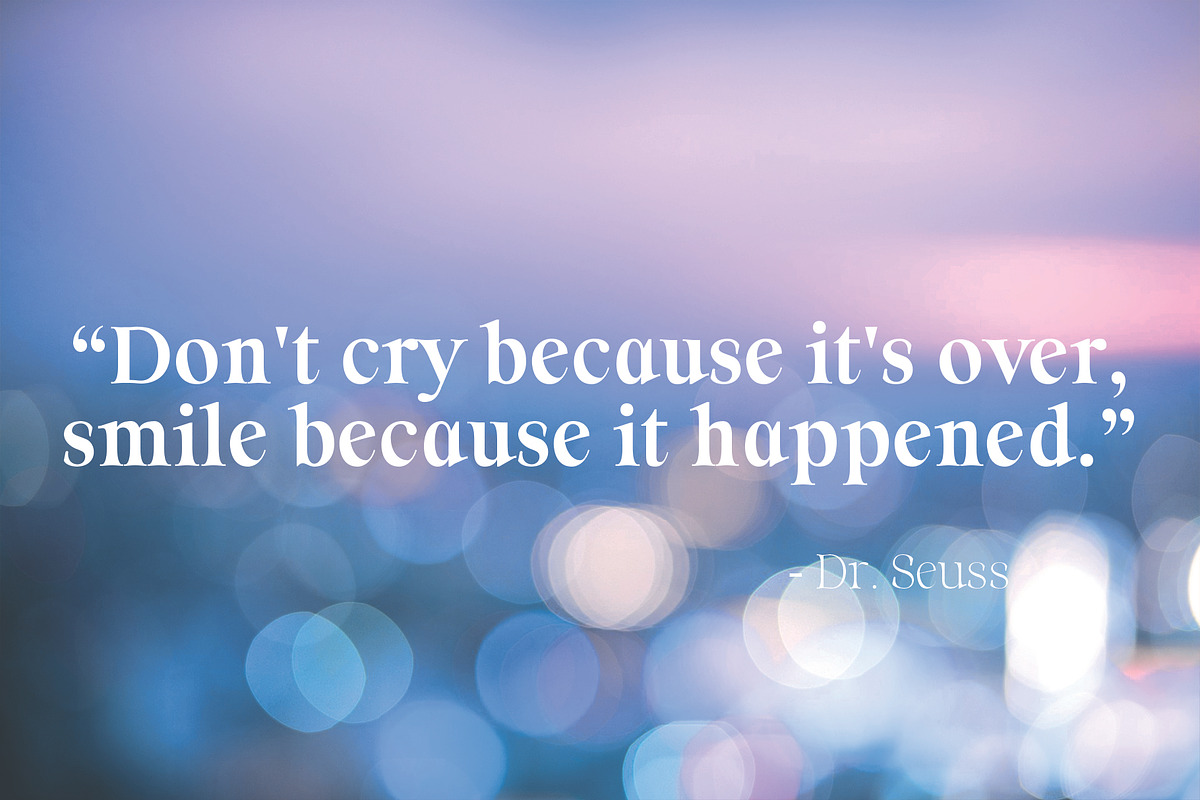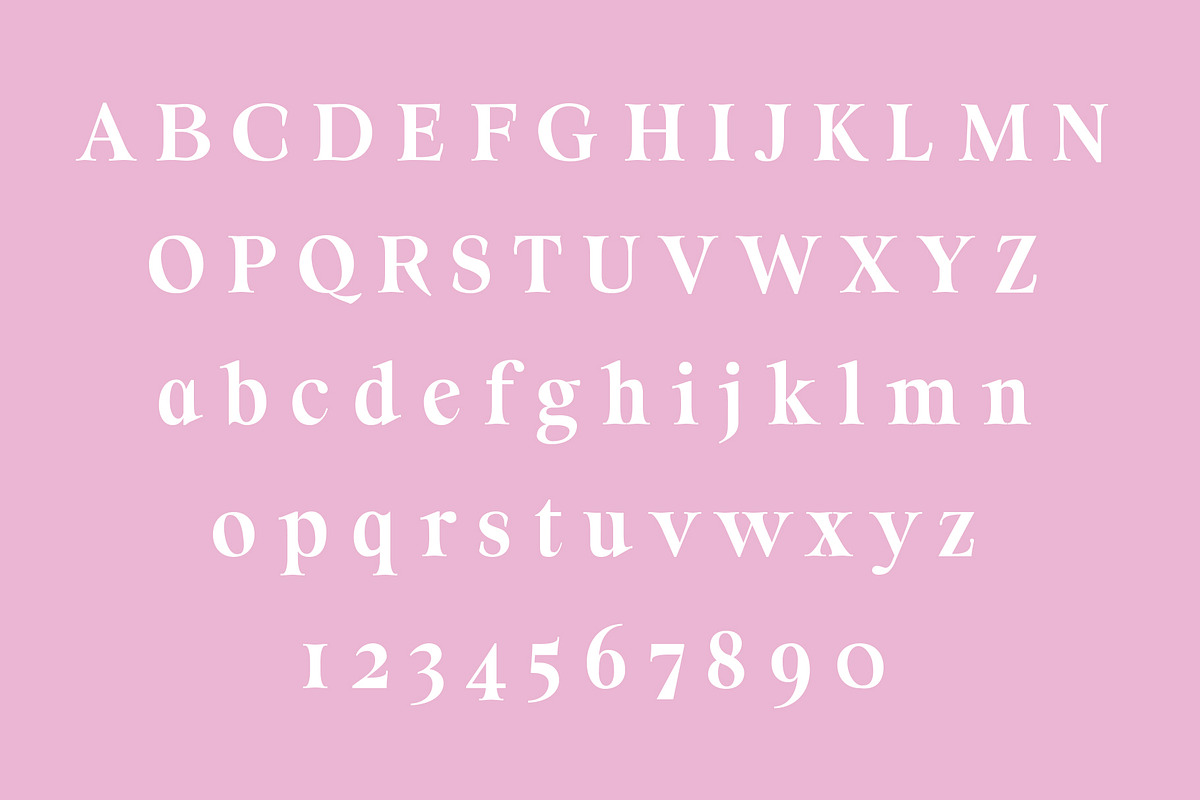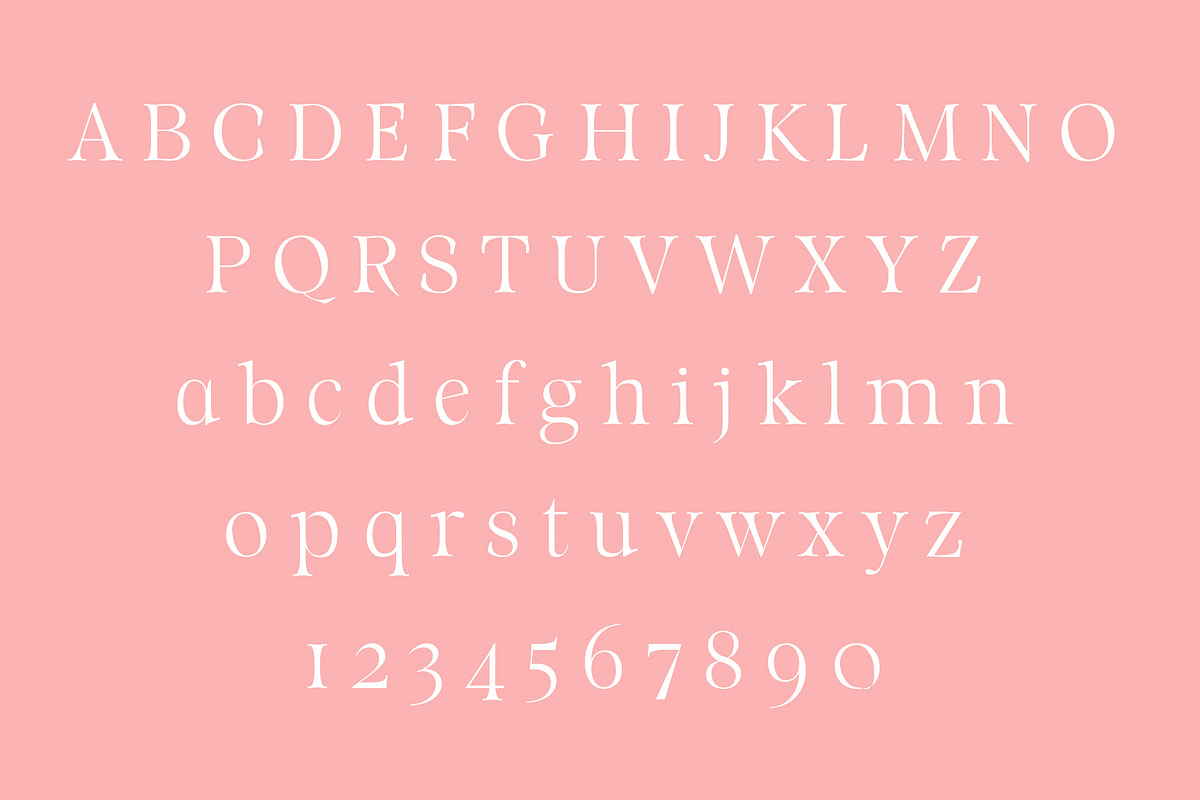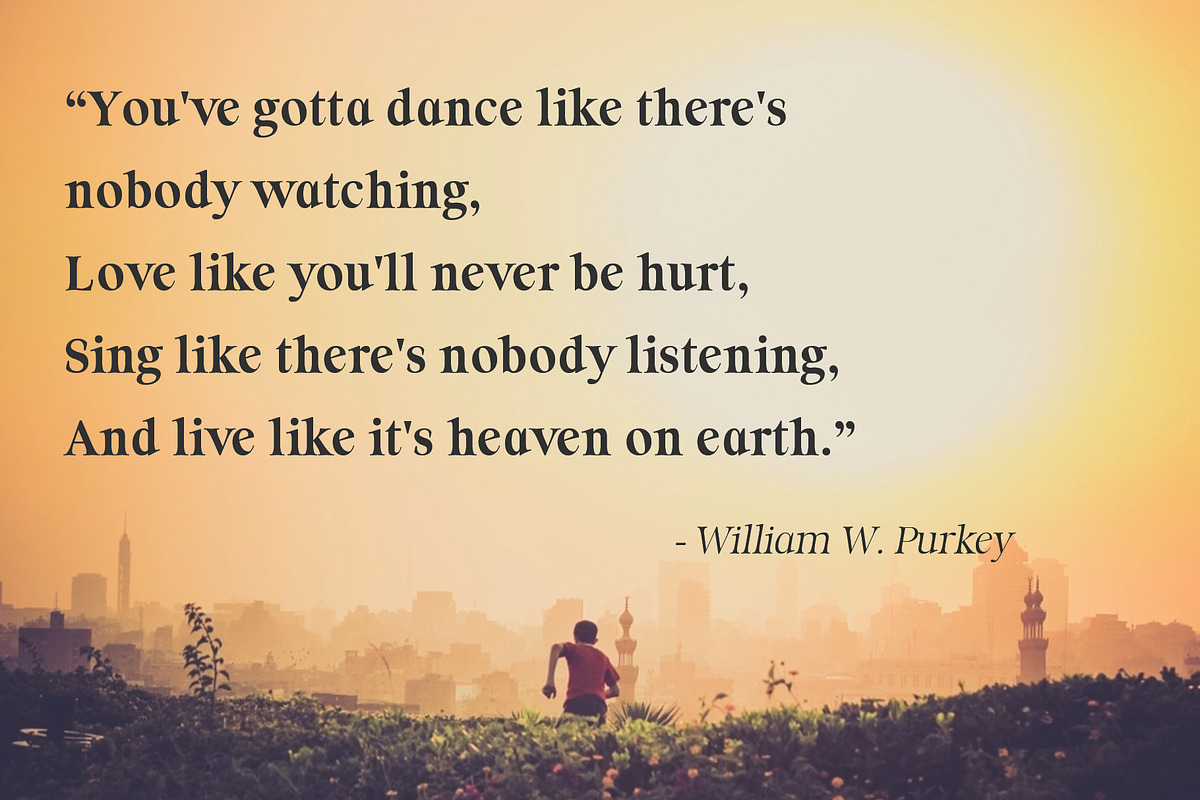
ORSON: An Essential Serif Typeface
ORSON is an elegant serif typeface. This classy typeface features clean serifs that have both thick and narrow profile. It's absolutely perfect for logos, titles, invitations, and more! Orson is a perfect font to have in your design arsenal!